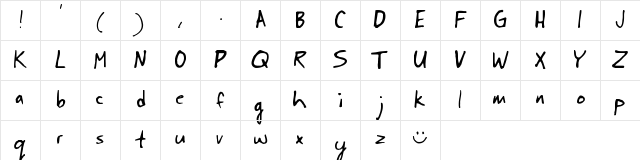
JohnnyFont Regular Free Font
JohnnyFont Regular
Design Context for JohnnyFont
JohnnyFont is a composed and adaptable typeface that performs quietly and consistently across a wide range of design contexts.